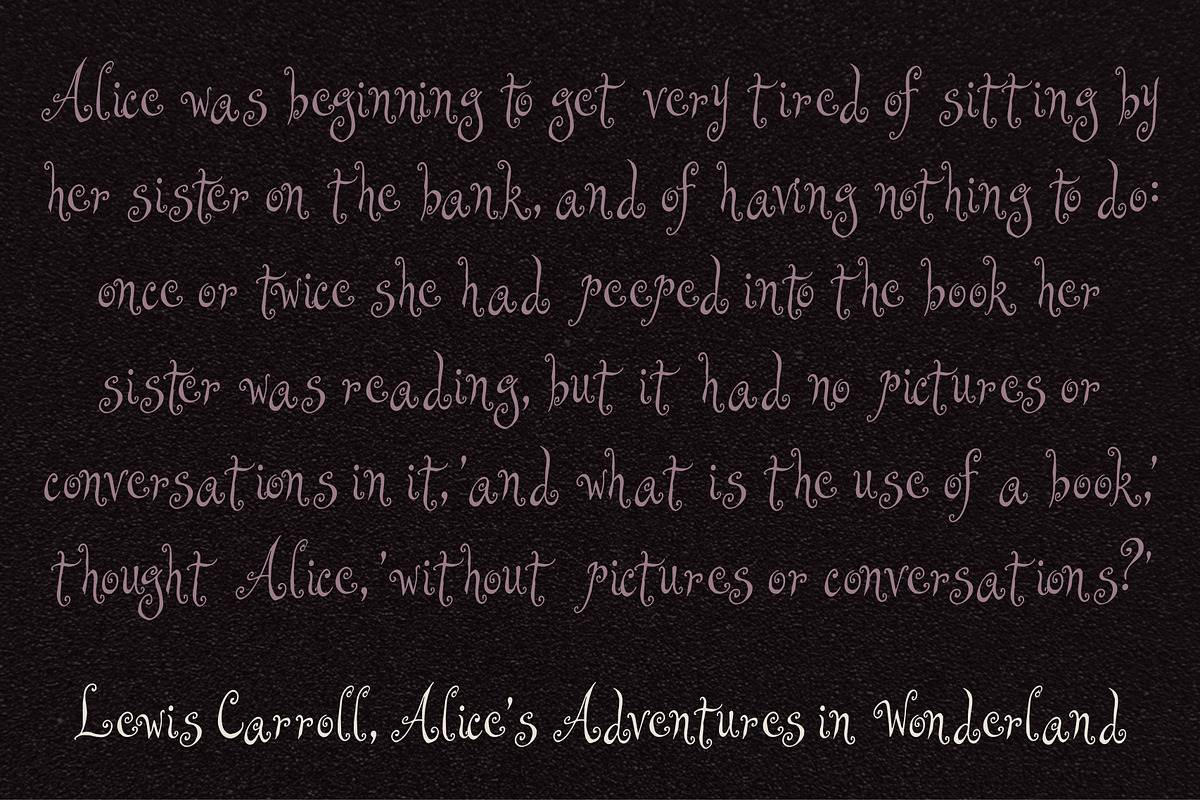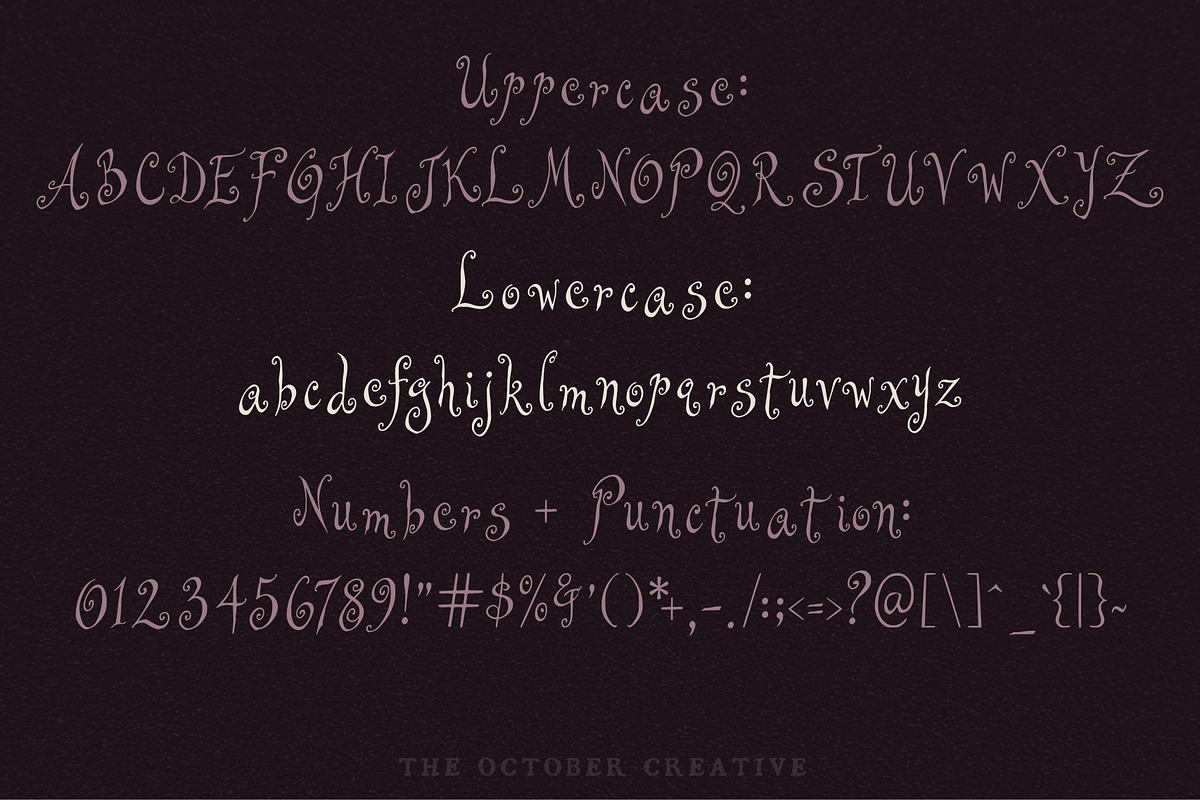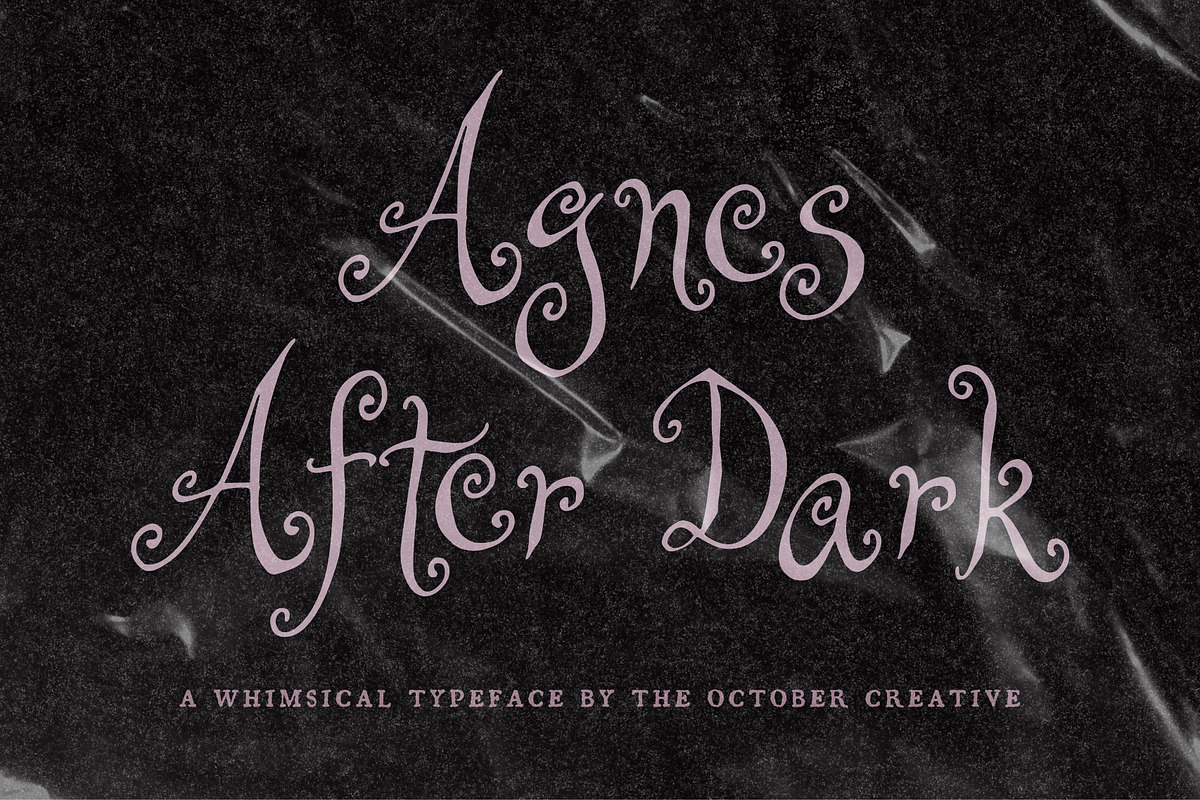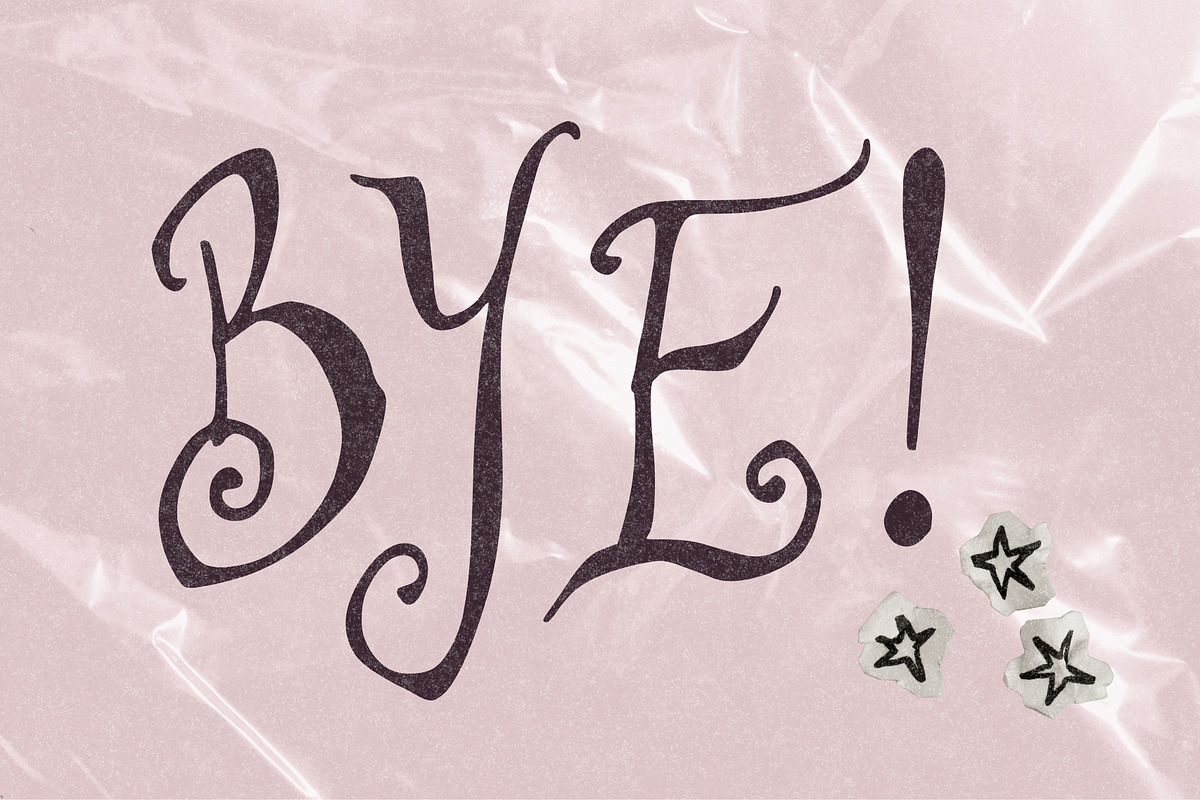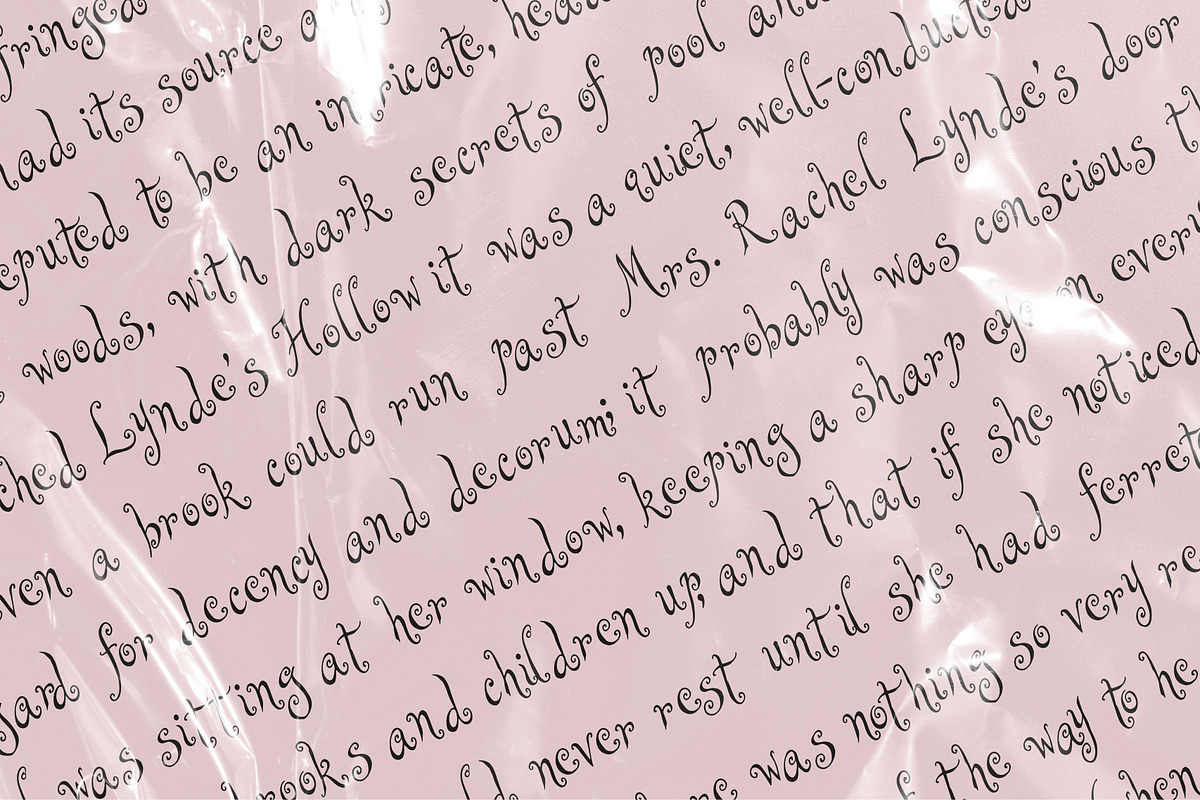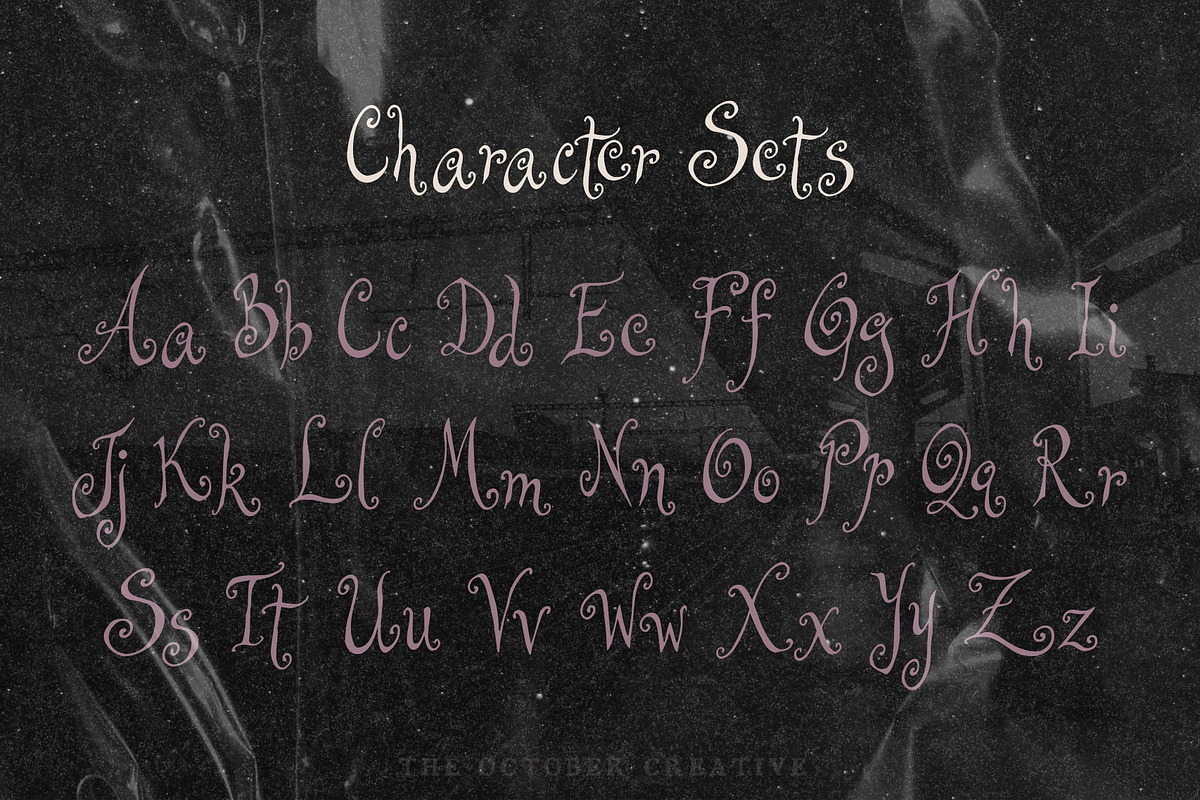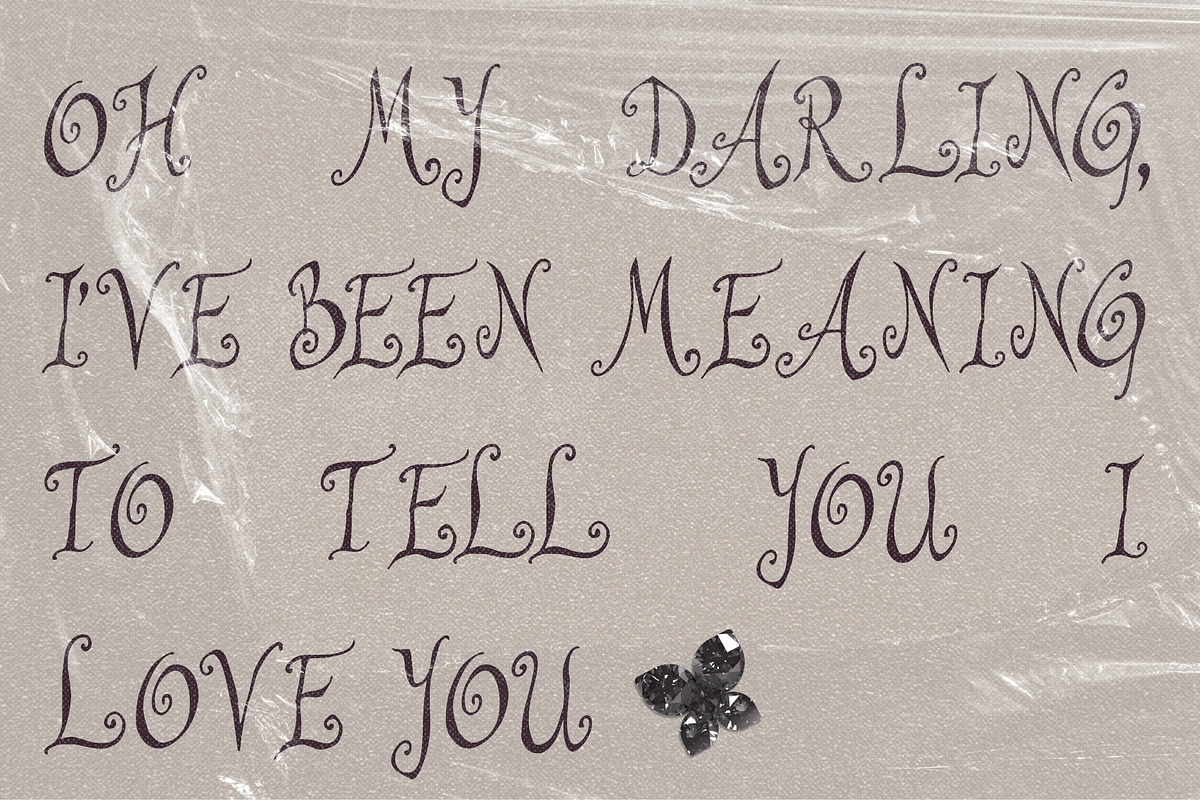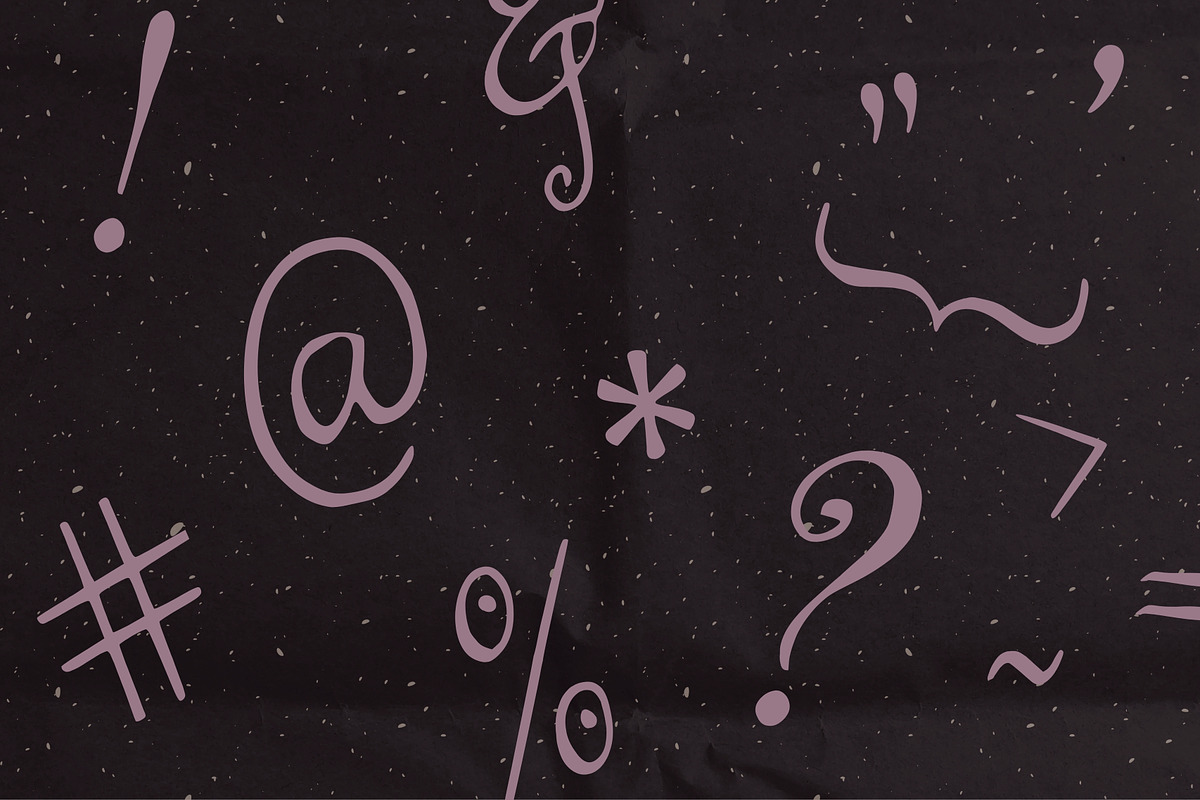
Agnes After Dark Curly Display Font
Agnes After Dark is a curling display font with thin strokes and spirals coming off the A, the D, and the k. It fits Halloween party invitations, October poster titles, witchy shop signage, and candle labels.
CHARACTER SET
Uppercase A to Z, lowercase a to z, numerals 0 to 9, and every standard keyboard punctuation mark and symbol: ! " # $ % & ' ( ) * + , - . / : ; < = > ? @ [ \ ] ^ _ ` { | } \~
Curly quotes and apostrophes (‘ ’ “ ”), en and em dashes, an ellipsis, and a bullet.
Accented letters: À Á Â Ã Ä Å Ç È É Ê Ë Ì Í Î Ï Ñ Ò Ó Ô Õ Ö Ù Ú Û Ü and their lowercase forms.
LANGUAGES SUPPORTED
English, plus the accented vowels, Ñ, and Ç used in names and everyday words in Spanish, French, Italian, Portuguese, German, and Dutch. Not included: ß, Æ, Ø, Œ, and the upside-down ¿ and ¡.
SPECIAL CHARACTERS